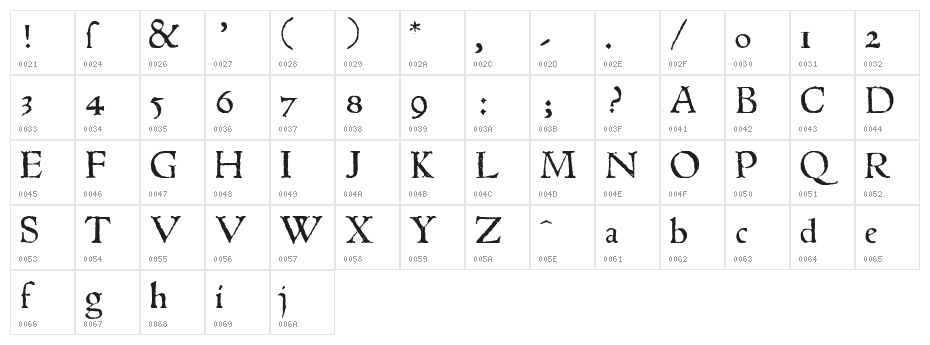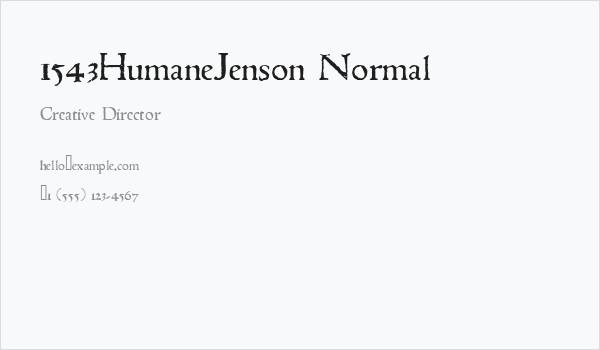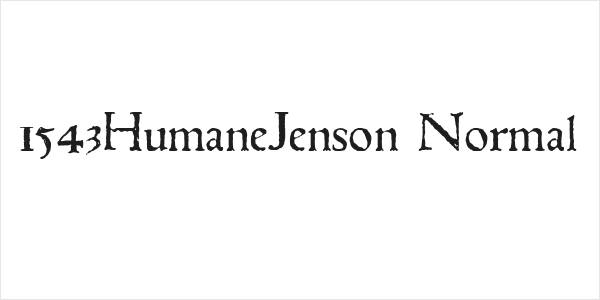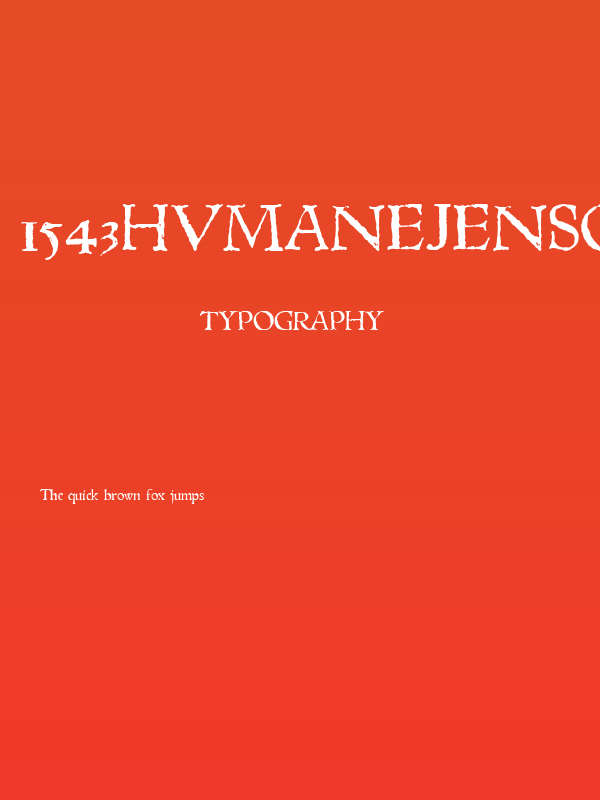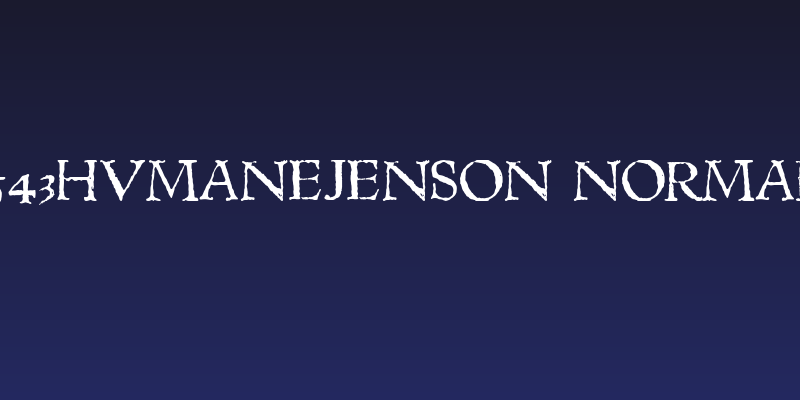
1543HumaneJenson Normal Font
1543HumaneJenson Normal Description
This font exudes a classic and historical charm, reminiscent of Renaissance-era typography. It features distinct serifs and a slightly uneven stroke, giving it an authentic, hand-crafted appearance. The uppercase letters are bold and commanding, while the lowercase letters maintain a consistent flow, enhancing readability. Numbers and special characters are designed with the same attention to detail, ensuring a cohesive look across all text elements. The font's overall aesthetic is both timeless and versatile, making it suitable for projects that require a touch of elegance and tradition.
| Proposed Projects | Ideal for historical documents, book covers, invitations, and branding that requires a traditional and elegant touch. |